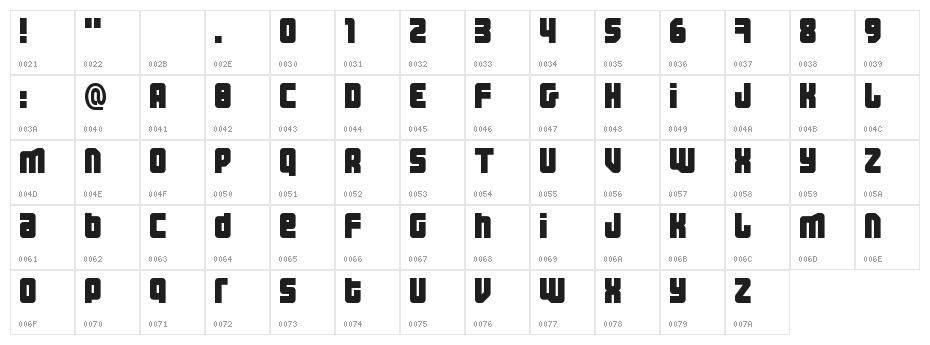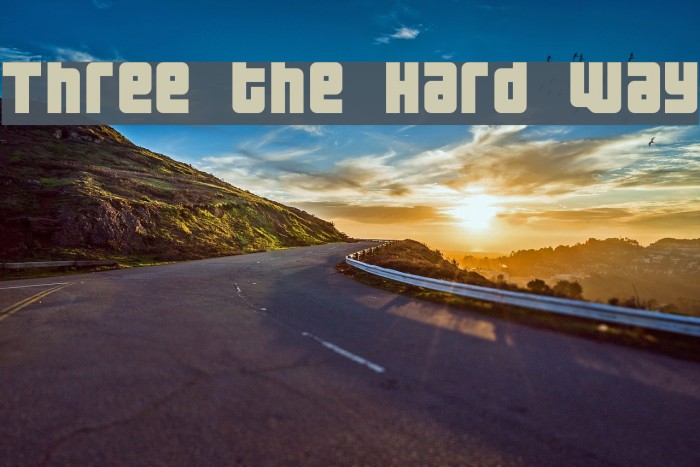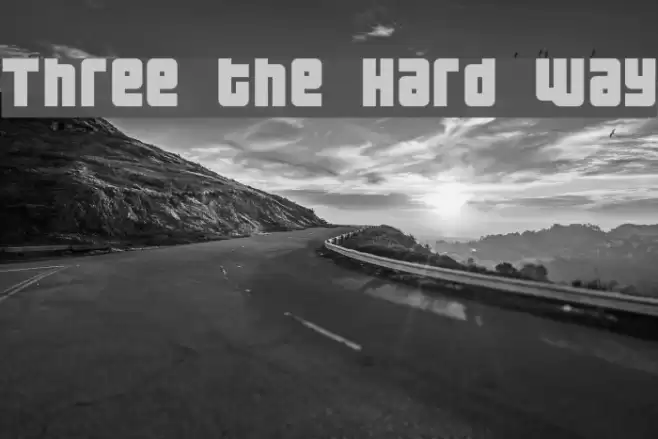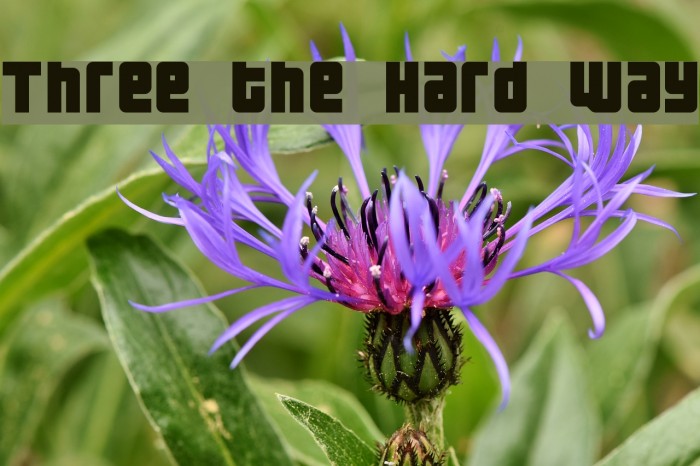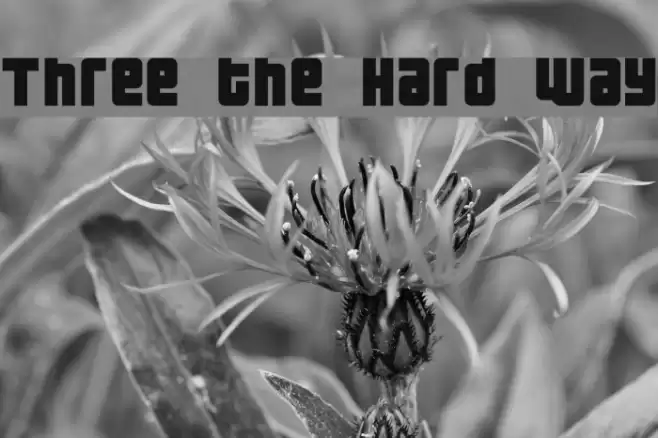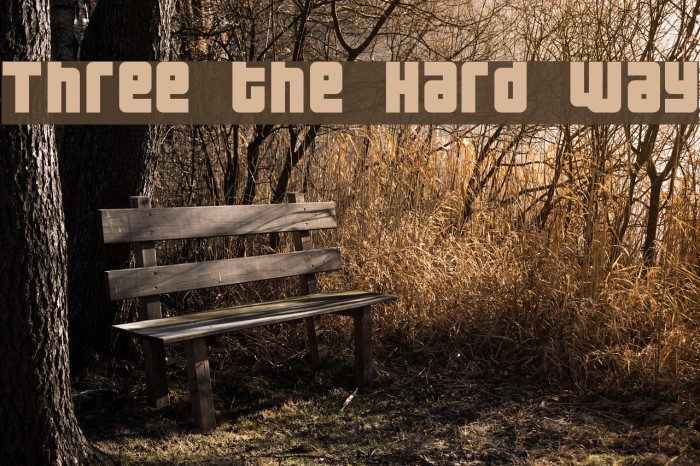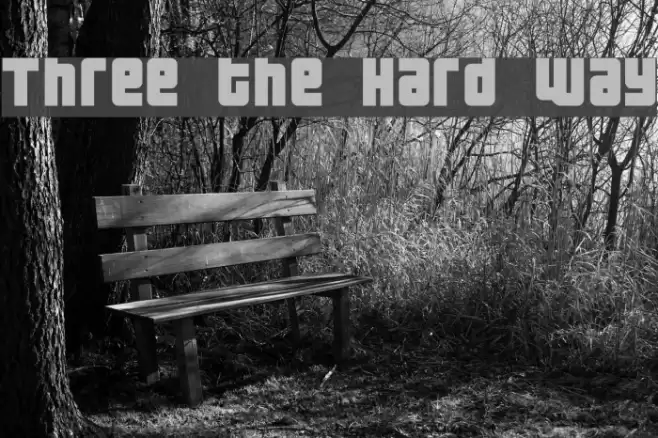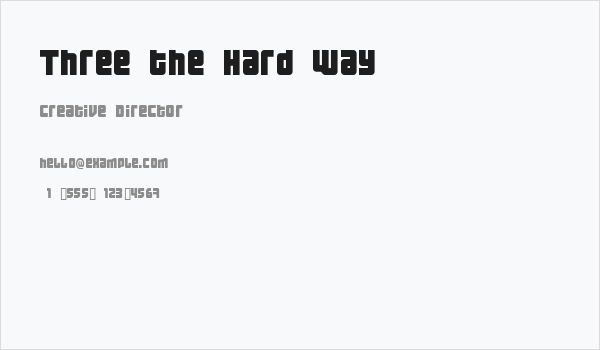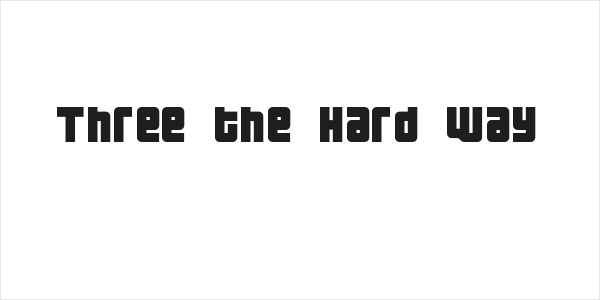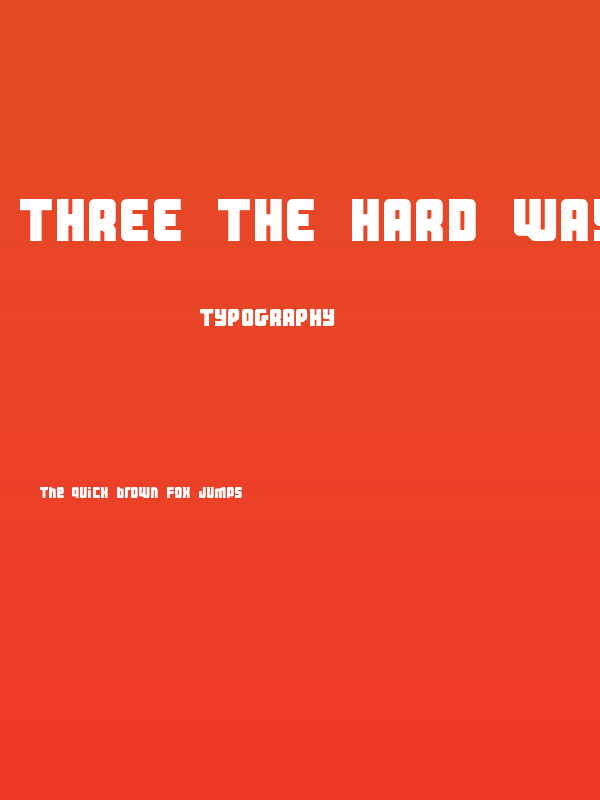
Three the Hard way Font
Three the Hard way Description
This font features a bold, geometric style with thick, blocky letters that convey a sense of strength and modernity. The characters are uniformly wide, with a consistent stroke weight that gives the font a cohesive and solid appearance. The uppercase and lowercase letters maintain a similar structure, enhancing readability while adding a unique flair. The numerals are equally robust, matching the overall aesthetic of the alphabet. Special characters are designed with the same boldness, ensuring they stand out clearly. This font's design is ideal for making a strong visual impact.
| Proposed Projects | Ideal for branding, posters, headlines, and any project requiring a strong visual impact. |